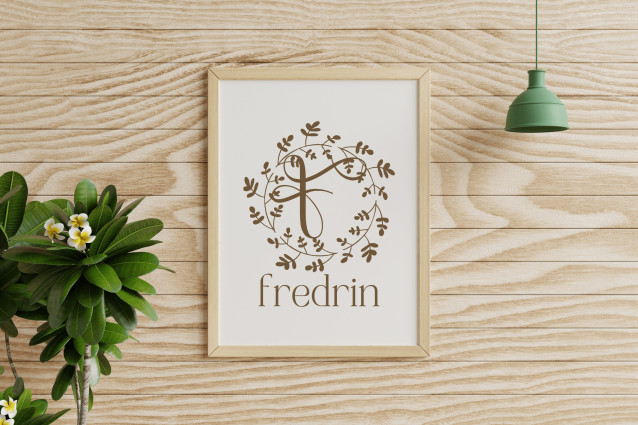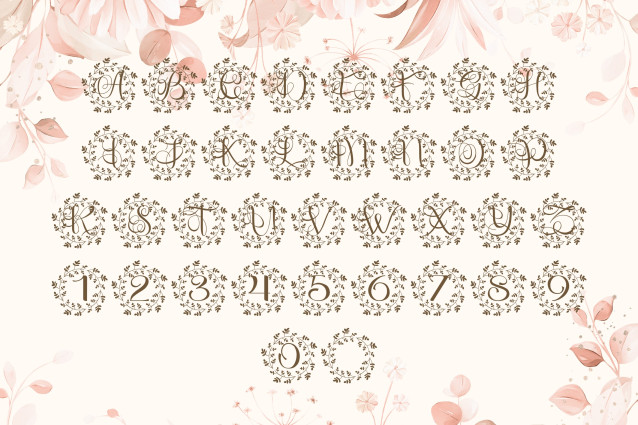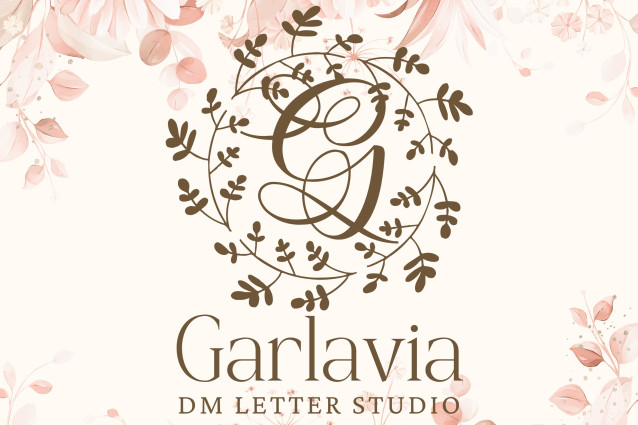
Garlavia Font
Garlavia Font is a timeless serif monogram font featuring elegant uppercase initials adorned with subtle botanical flourishes. With its balanced letterforms and organic embellishments, Garlavia brings sophistication and nature-inspired charm to weddings, Cricut crafts, high-end branding, and personalized design projects.